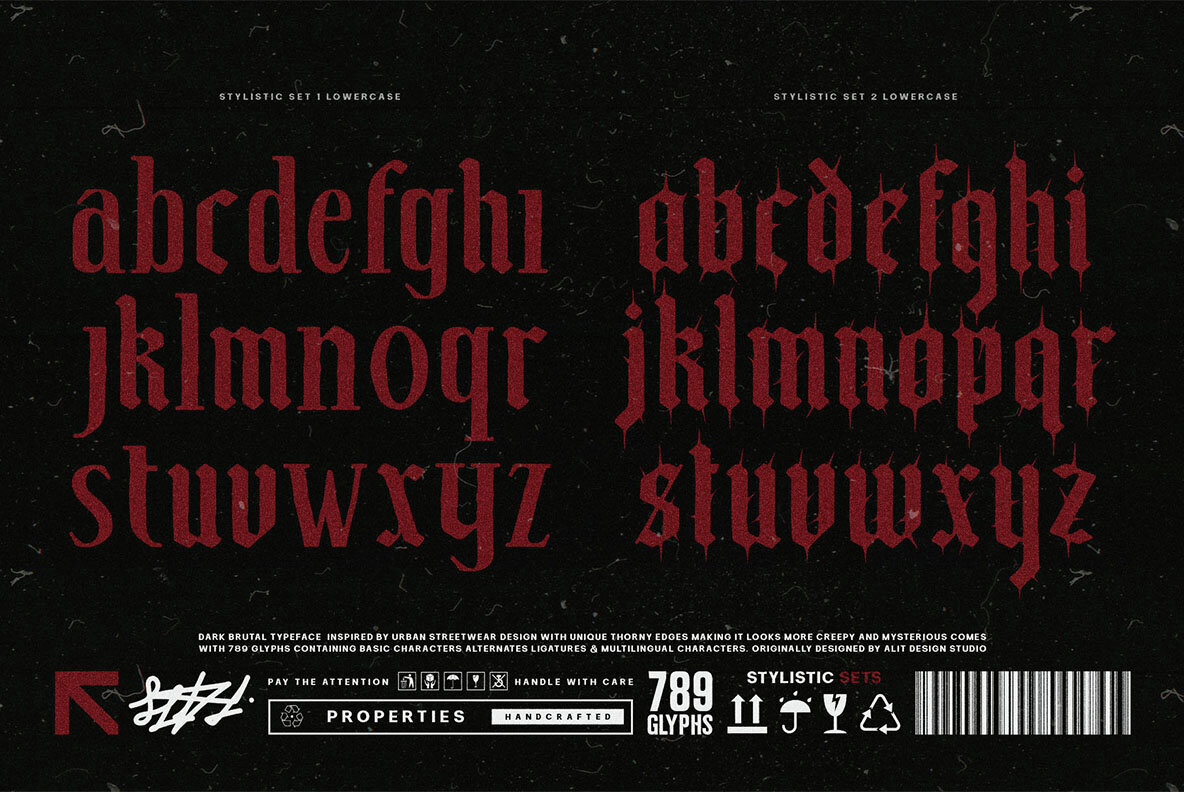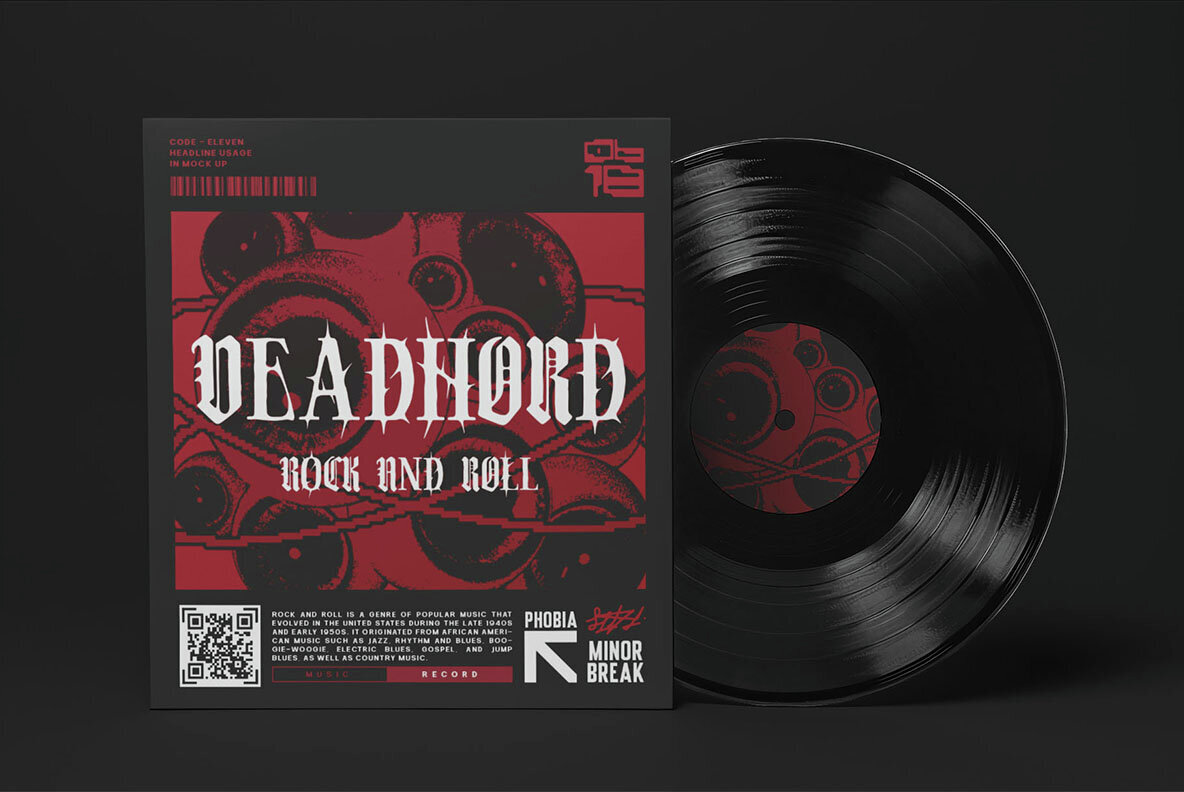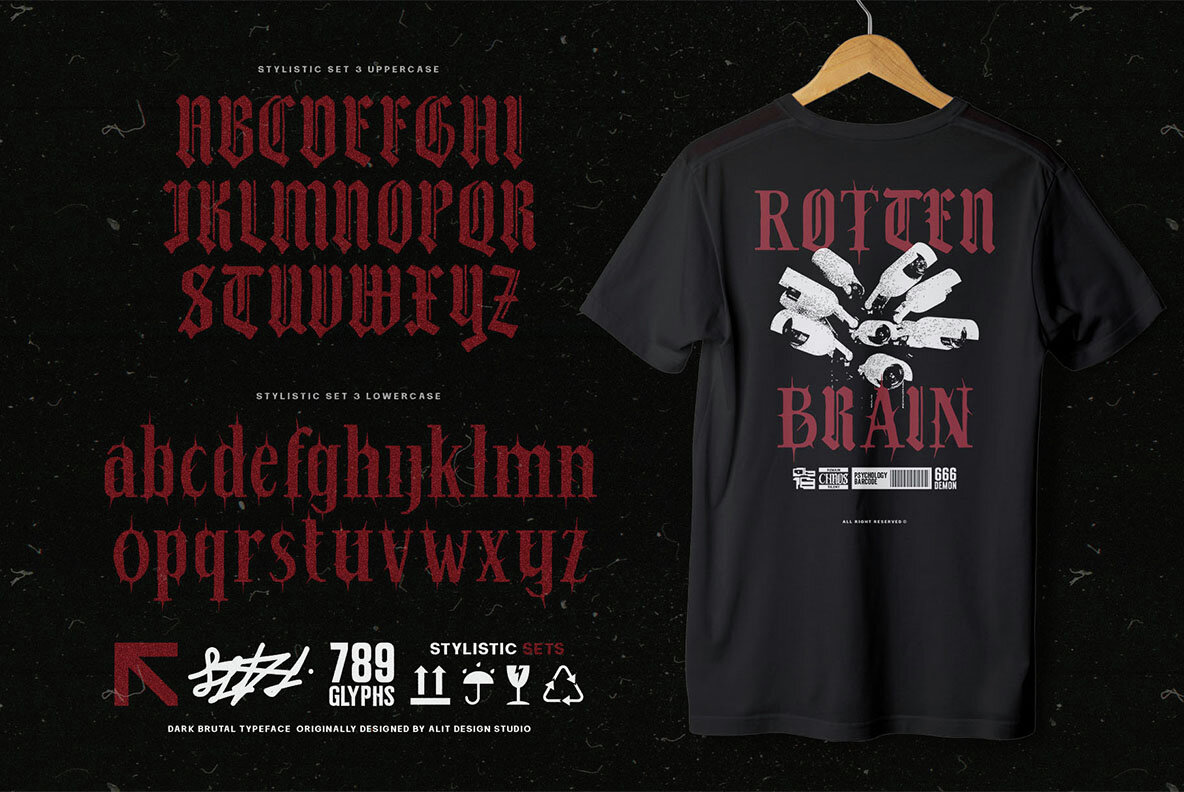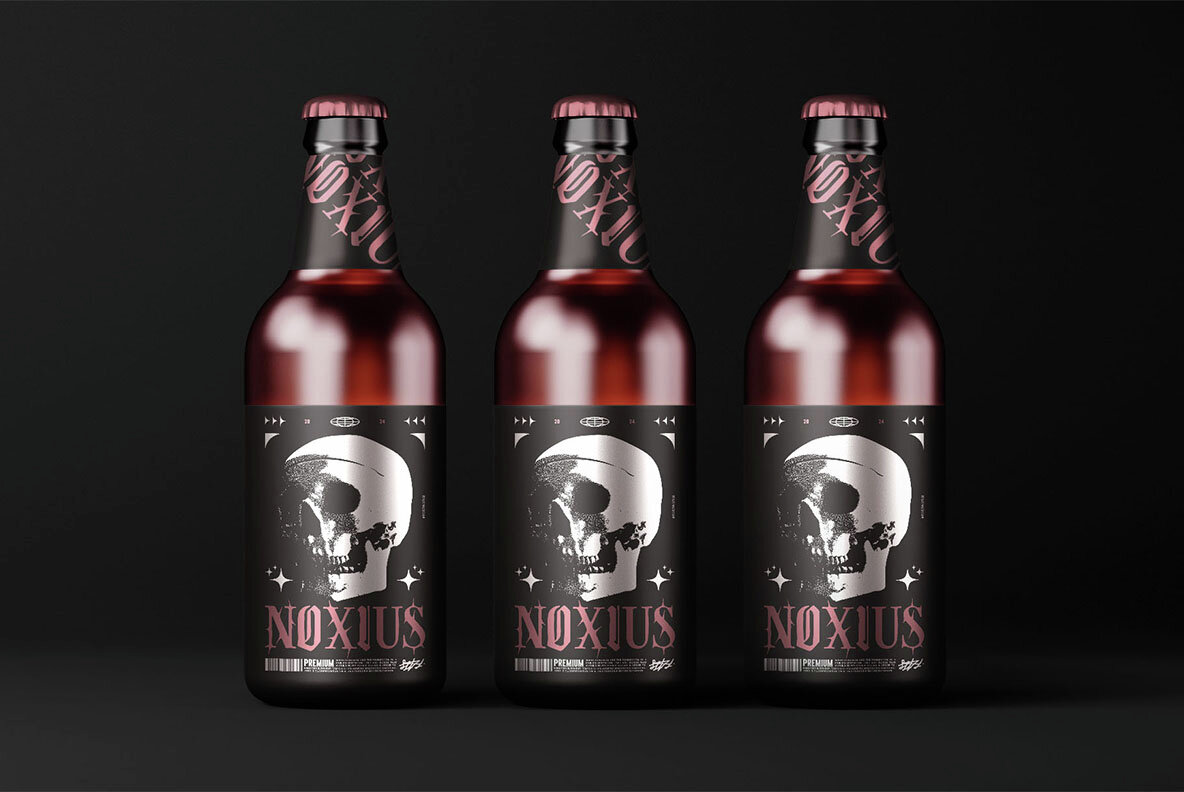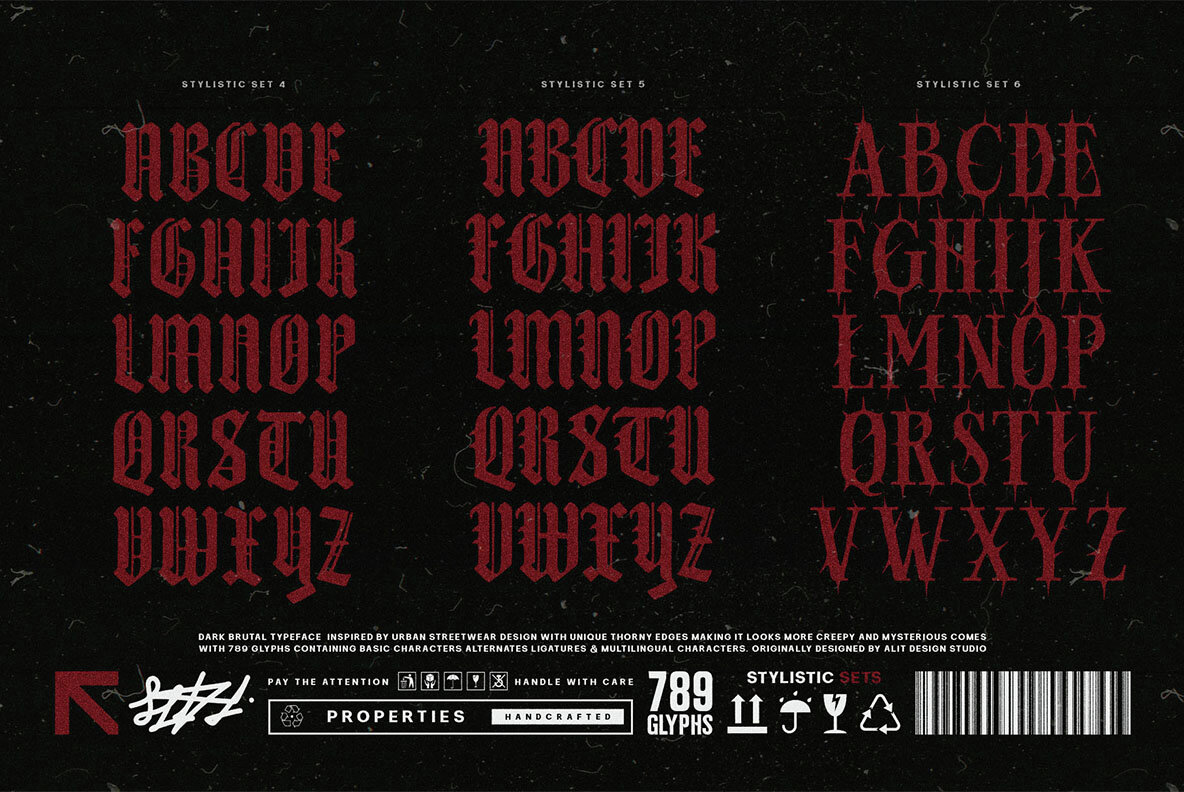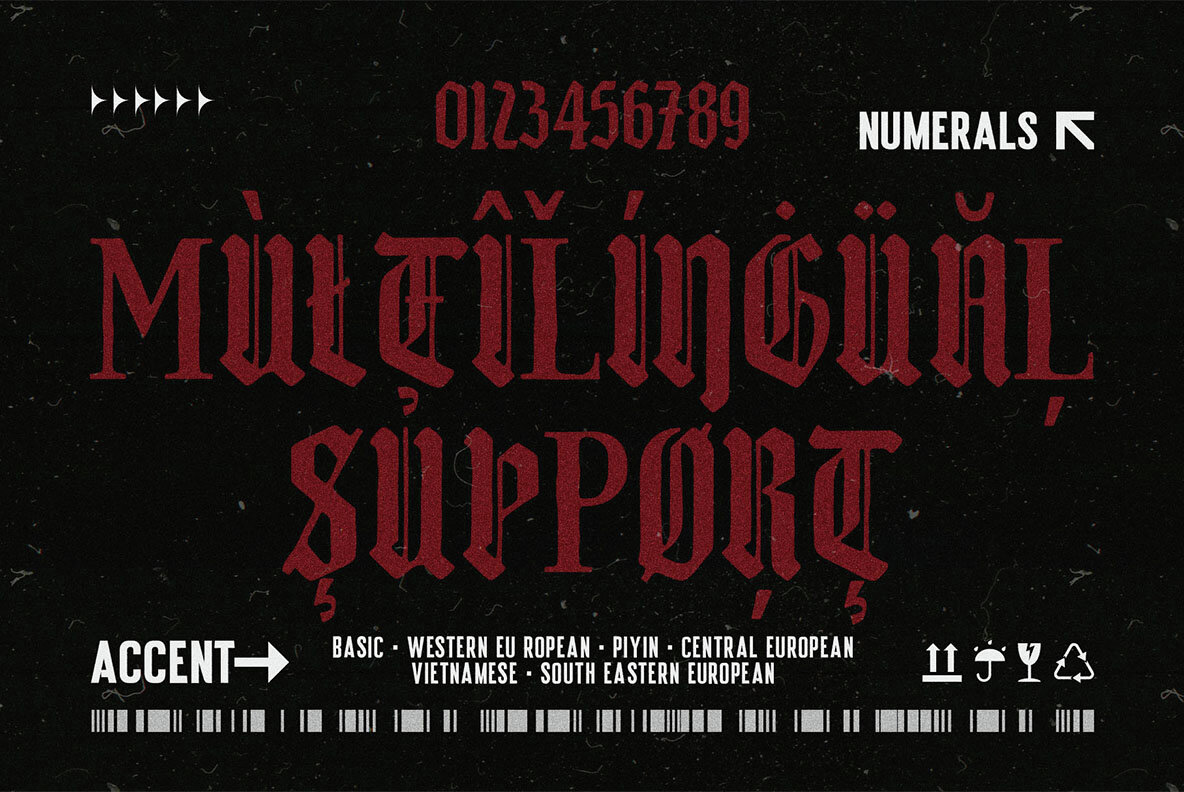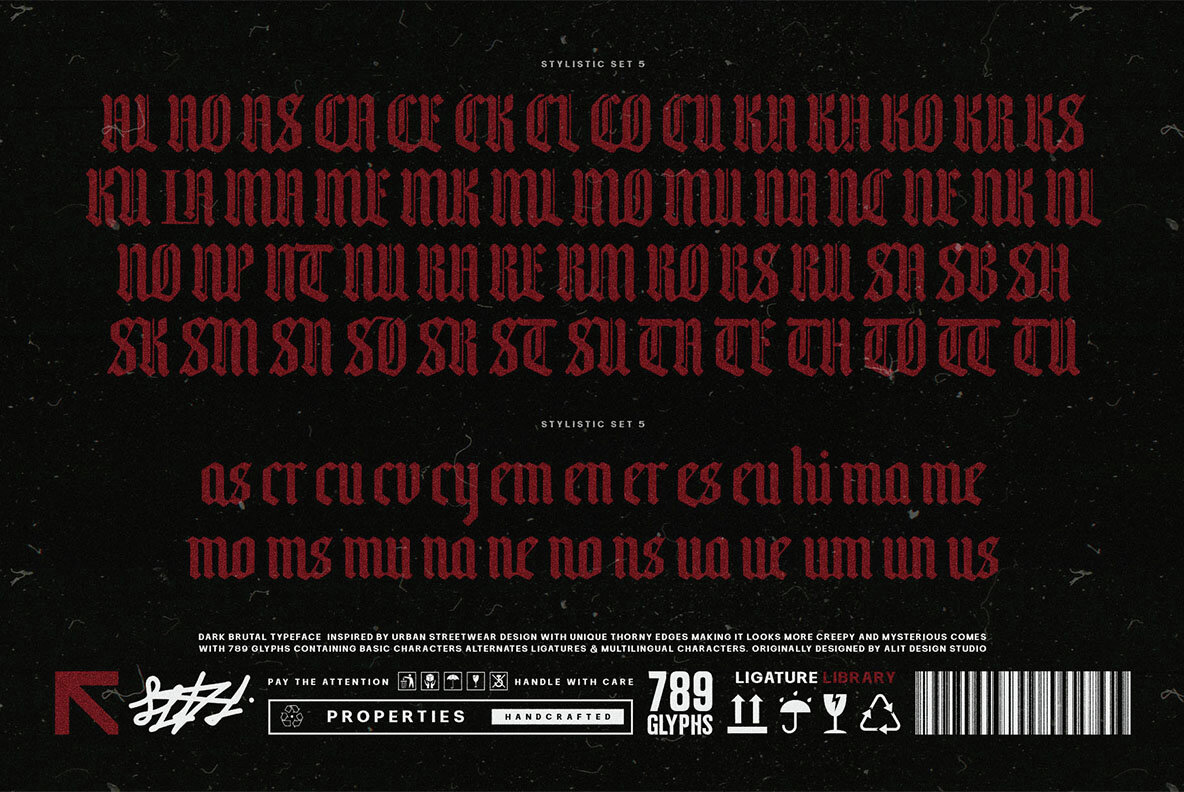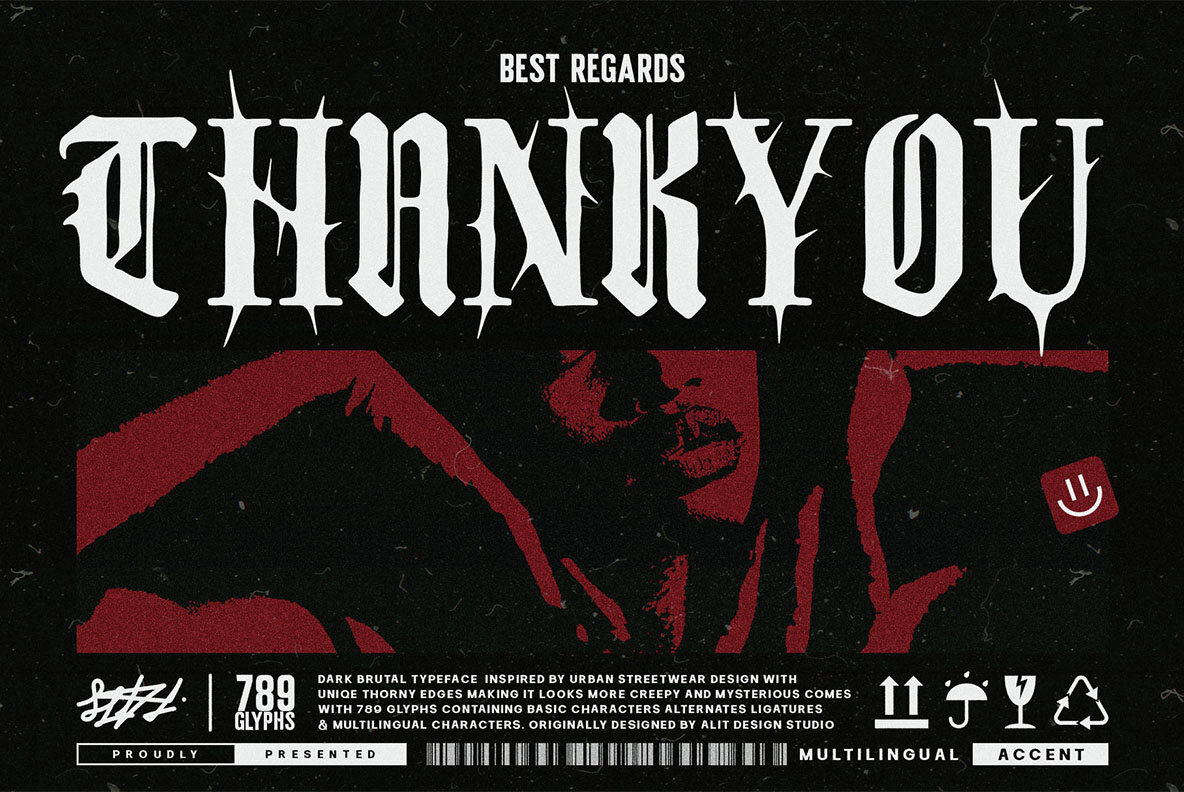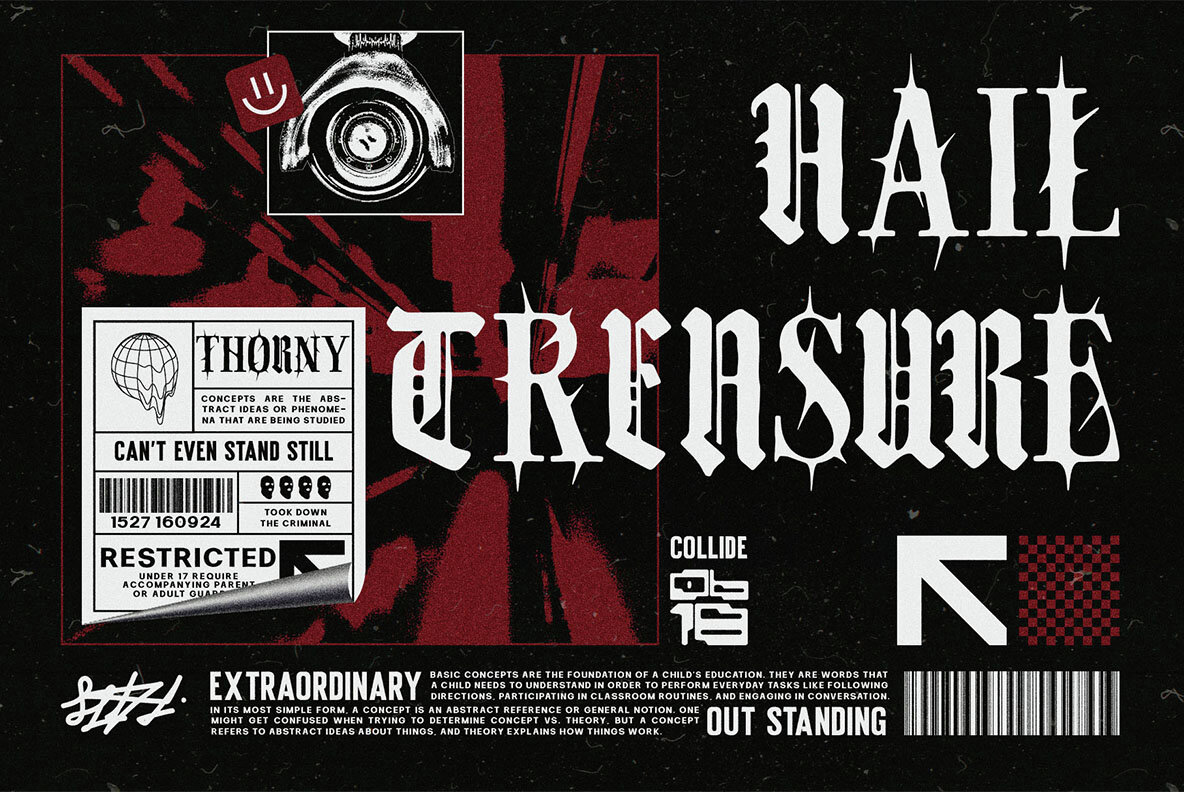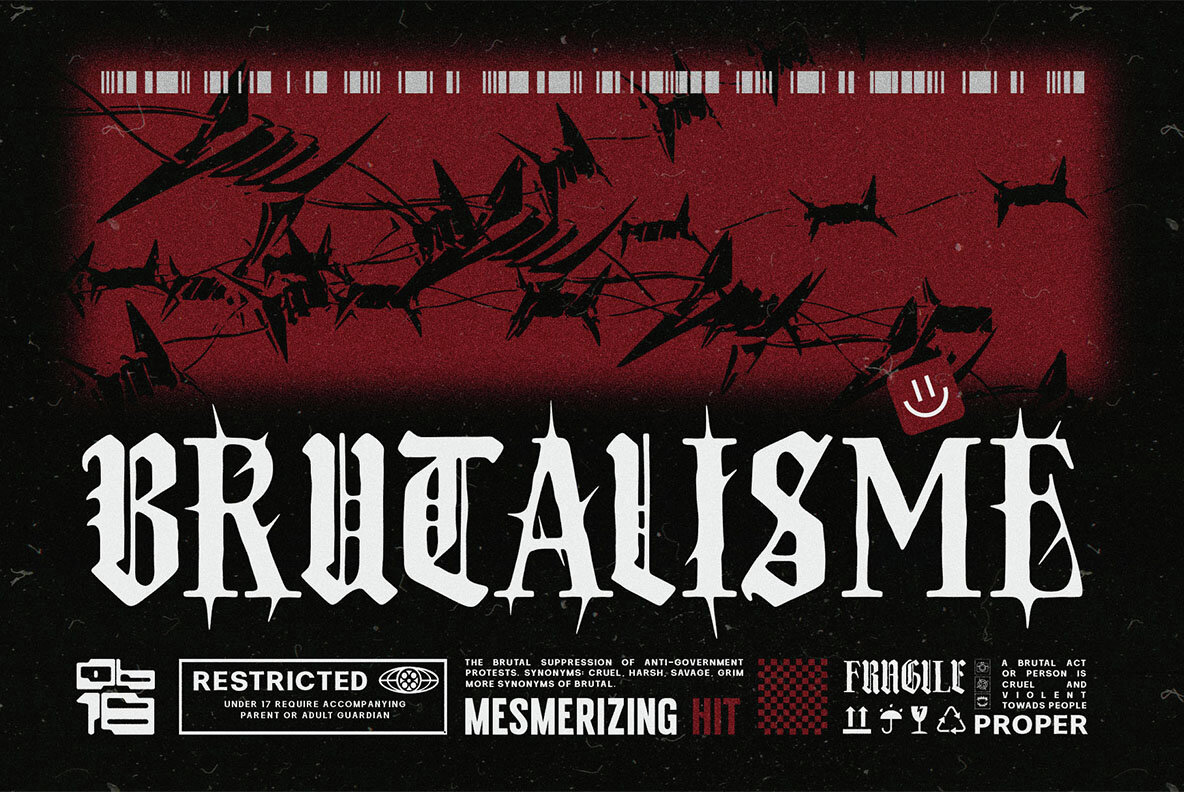
Dark Brutal Font
Dark brutal Regular
Introducing Dark Brutal Typeface, a commanding blackletter font that embodies rugged intensity and rebellion. With its sharp edges, distressed strokes, and medieval-inspired aesthetic, this typeface makes a fierce visual impact for music, fashion, or alternative branding projects. Packed with 784 meticulously designed glyphs, Dark Brutal Typeface offers extensive creative possibilities while maintaining a cohesive and dynamic style.
Enhance your typography with alternates and ligatures, adding unique touches to your text. PUA-encoded characters ensure full access to all glyphs, even in non-standard software, unlocking the font's complete potential. Multilingual support covers a wide range of languages, making your designs accessible to global audiences. Ideal for heavy metal, punk, and gothic-themed posters, edgy branding, streetwear, tattoo designs, and projects seeking a rough, ancient feel, Dark Brutal Typeface delivers a bold, dramatic edge that commands attention. Unleash the darkness and transform your designs into raw, unrefined works of art.